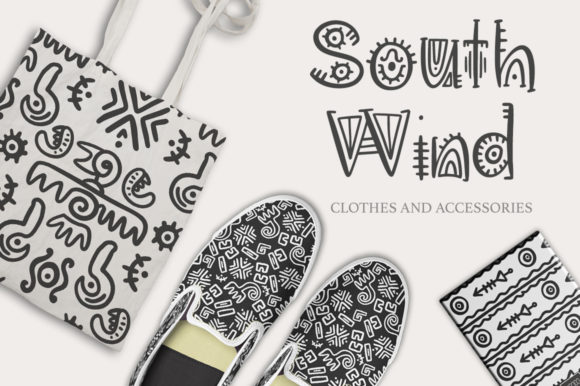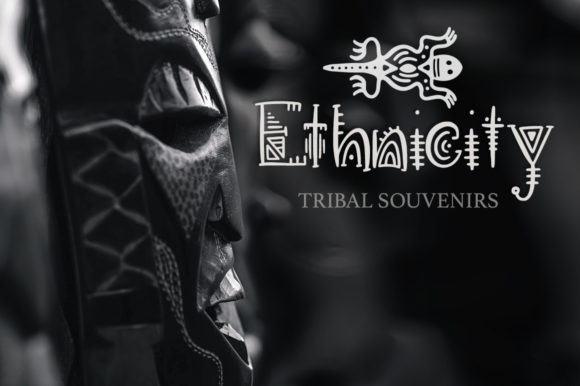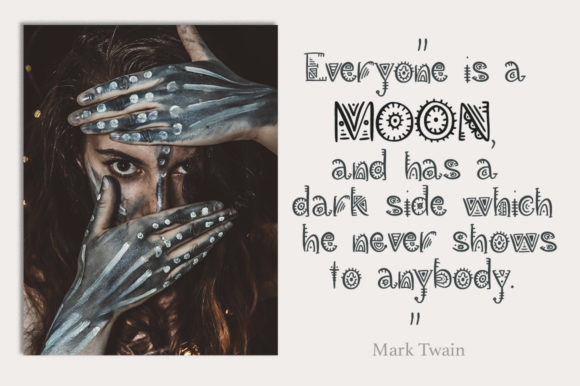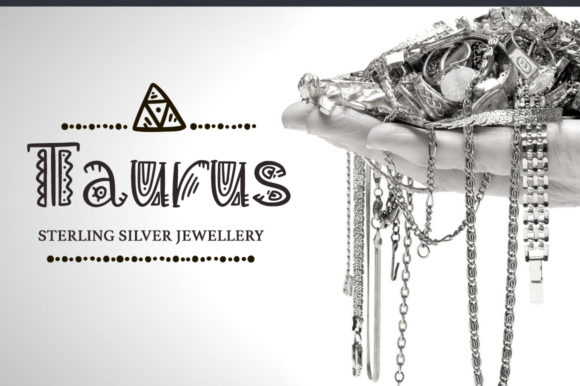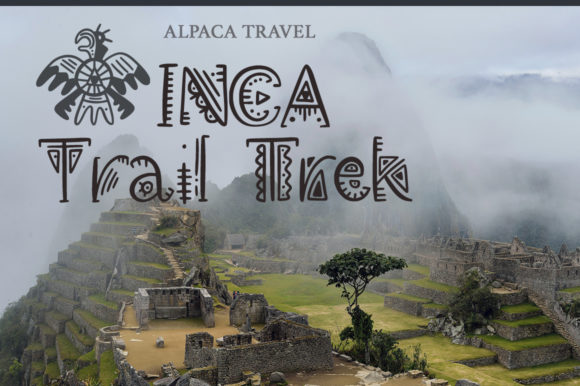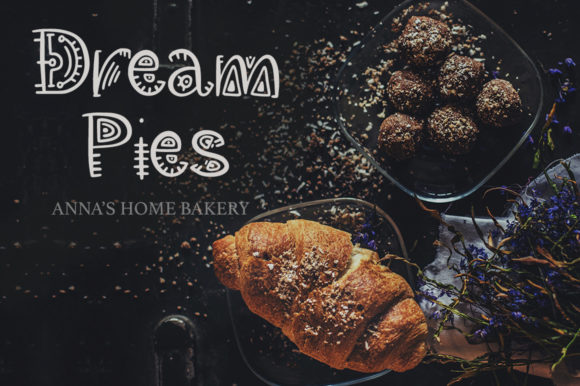
The Aztec Soul Font: A Treasure Trove for Creative Projects
Have you ever been in the middle of a design project, pouring your heart and soul into it, only to realize that the perfect font is missing? I recall a particularly frustrating experience when I was working on a branding project for a client who wanted a bold, statement piece that screamed ‘Aztec chic.’ After hours of scouring the internet for the perfect font, I stumbled upon the Aztec Soul Font. It was love at first sight! ✨
- ✨ The Aztec Soul Font is more than just a font; it’s a complete creative set. It comes with beautifully hand-drawn textures of tribal Aztec ornaments in every letter.
- ✅ The font is a detailed display font, perfect for making a statement in any design project.
- 🎉 It also includes 25 decorative Aztec ornament elements to decorate your texts and make amazing prints for different creative projects.
While the Aztec Soul Font is a fantastic resource, there are a few things to keep in mind: ⚠️
- 🤔 The font’s intricate details might make it less suitable for small font sizes or projects requiring a more minimalist approach.
- ⚠️ Some users might find the learning curve for using the OpenType features and glyphs a bit steep, especially if they’re new to typography.
The Designer Inspiration Behind Aztec Soul Font
The Aztec Soul Font was inspired by the rich cultural heritage of the Aztecs, with their intricate patterns, symbols, and mythology. The designer aimed to capture the essence of Aztec art and bring it to life in a modern font. By combining traditional Aztec elements with a modern aesthetic, the font is perfect for designers looking to add a touch of ancient mysticism to their projects.
| Is the Aztec Soul Font suitable for body text? | While the Aztec Soul Font is a beautiful display font, its intricate details might make it less suitable for body text. It’s best used for headings or titles. |